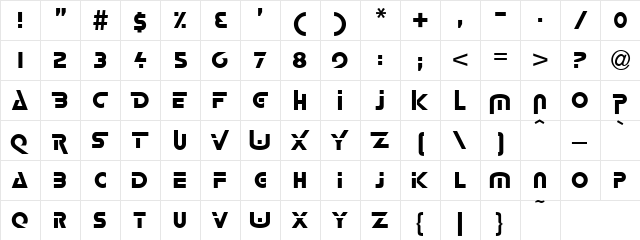
Mank Regular
Design Context for Mank Typeface
Mank offers clean, dependable letterforms without strong stylistic allegiance, making it a practical choice for designers who need flexibility.